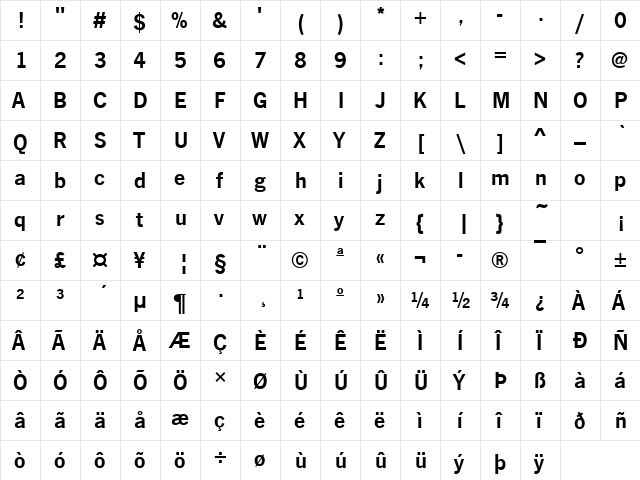
NewsGotTDem Regular Font Preview
NewsGotTDem Regular
NewsGotTDem Regular Font Details
Design Context for NewsGotTDem Typeface
NewsGotTDem is a composed and adaptable typeface that performs quietly and consistently across a wide range of design contexts.